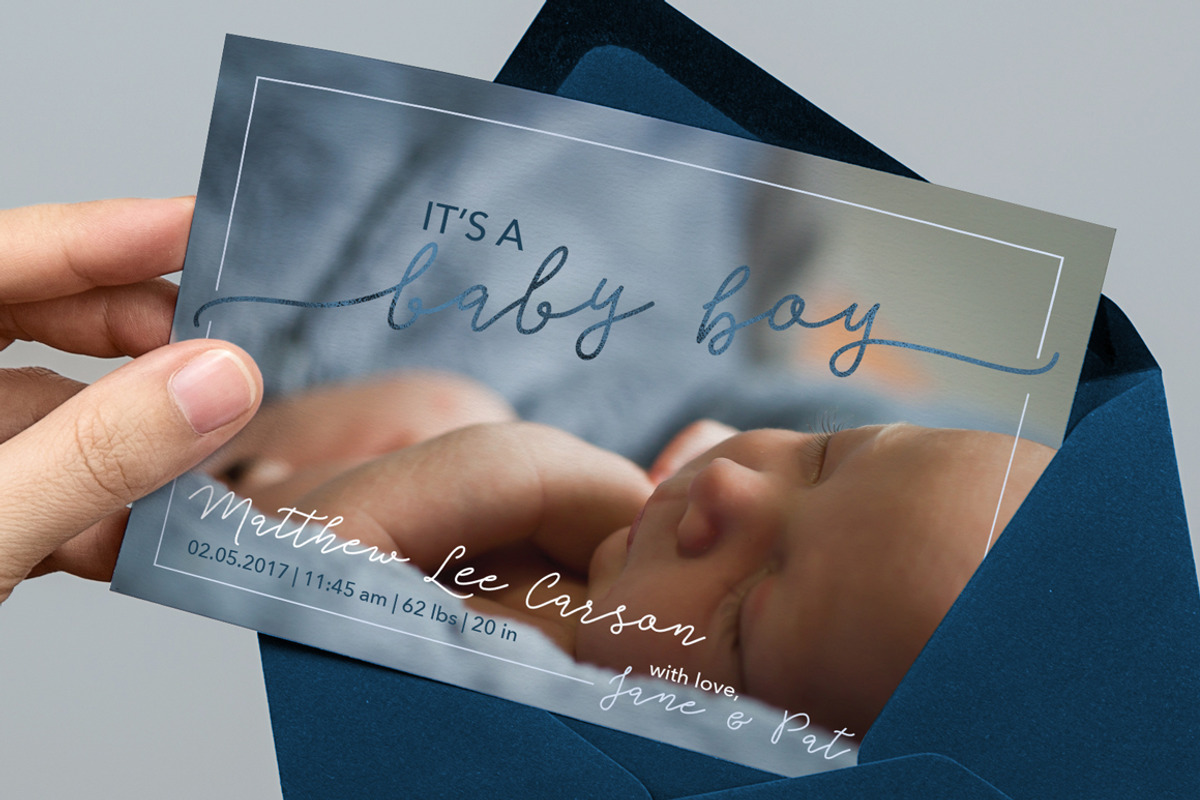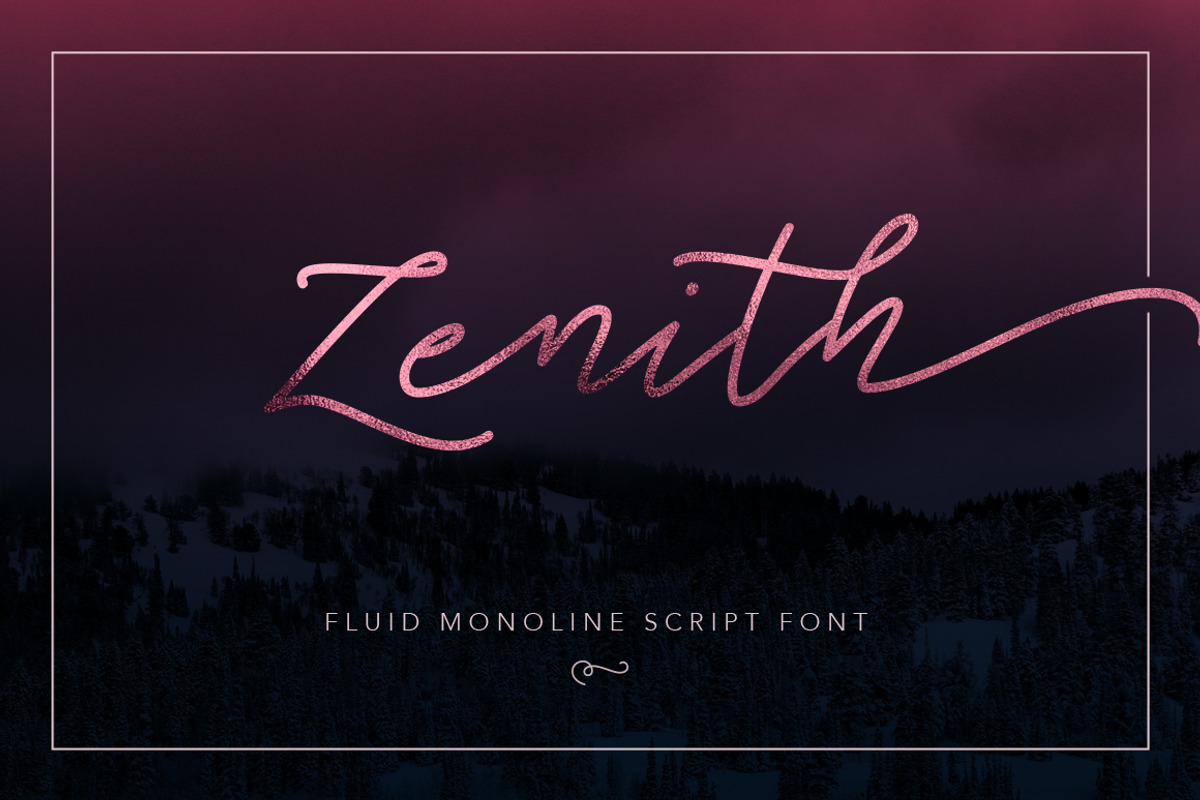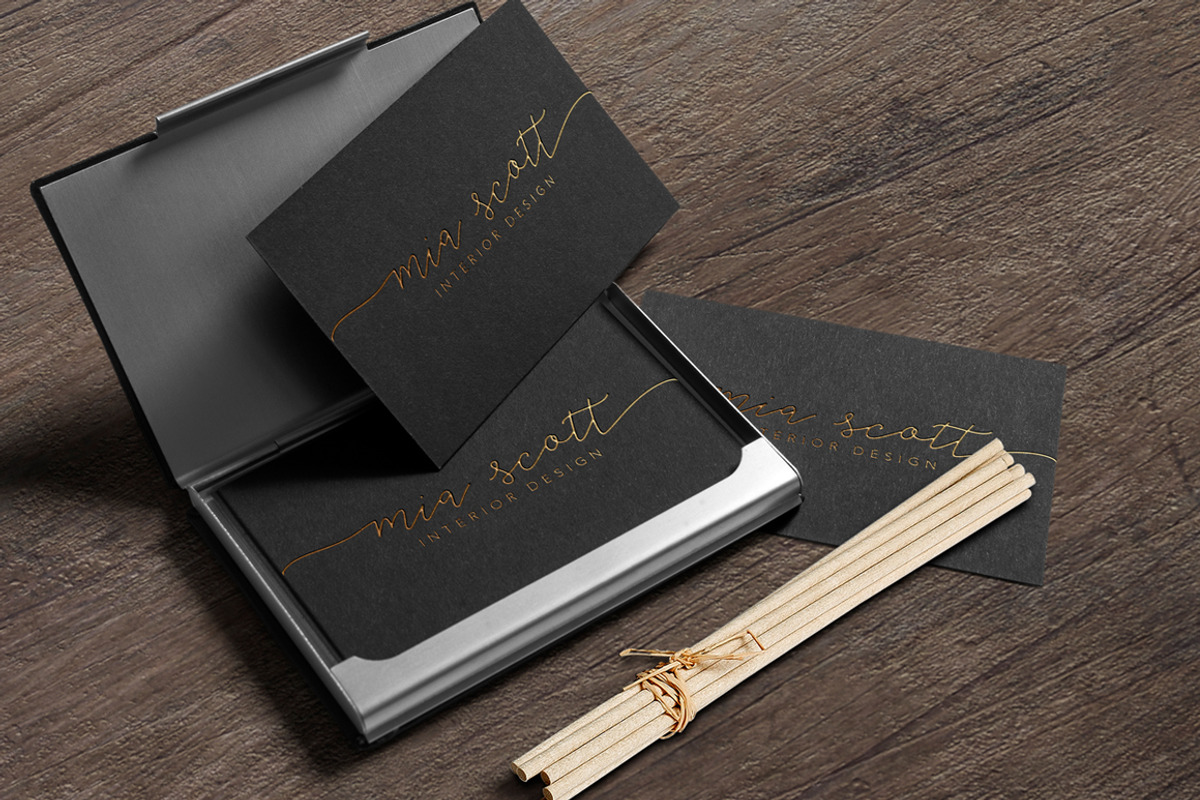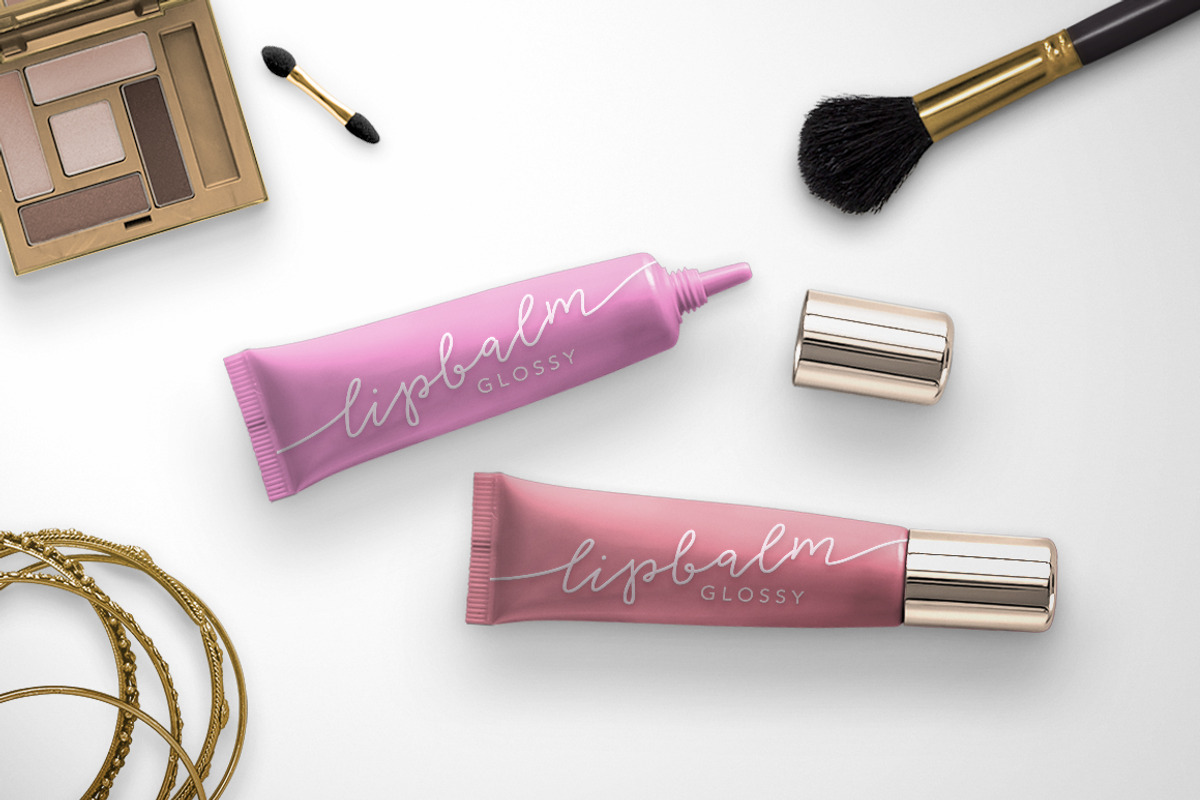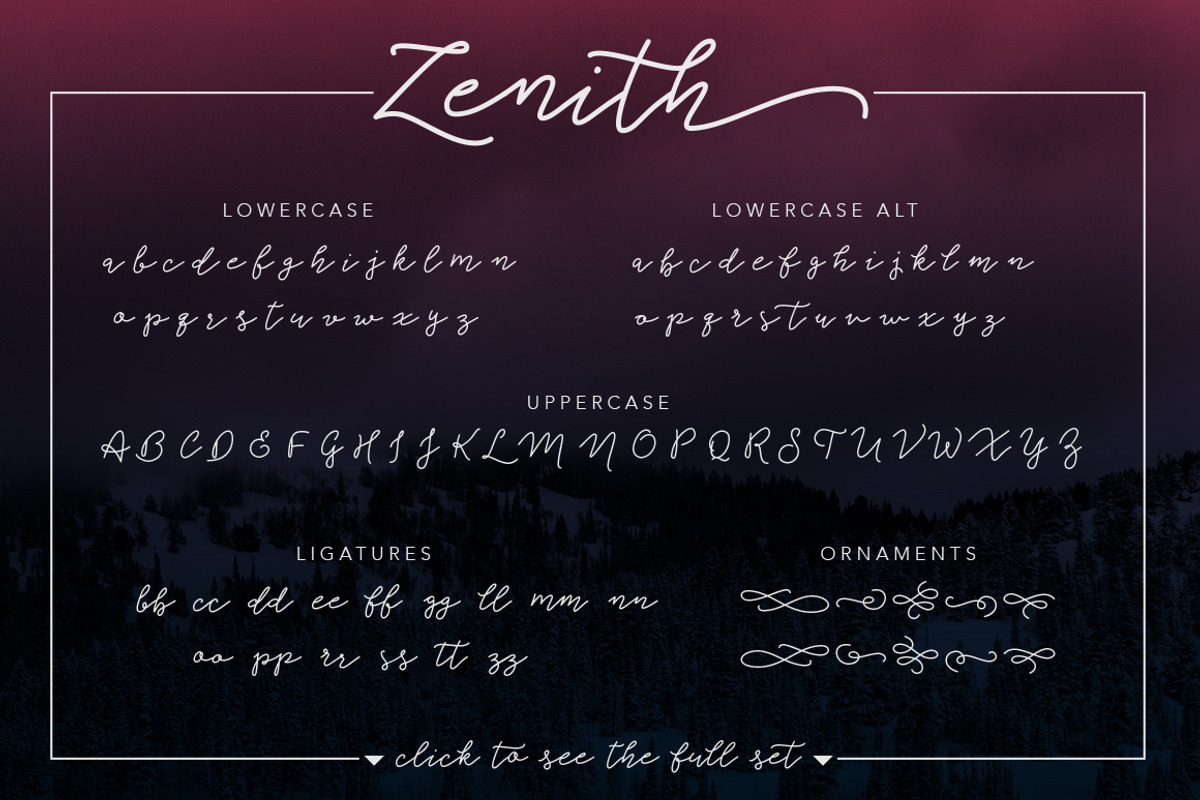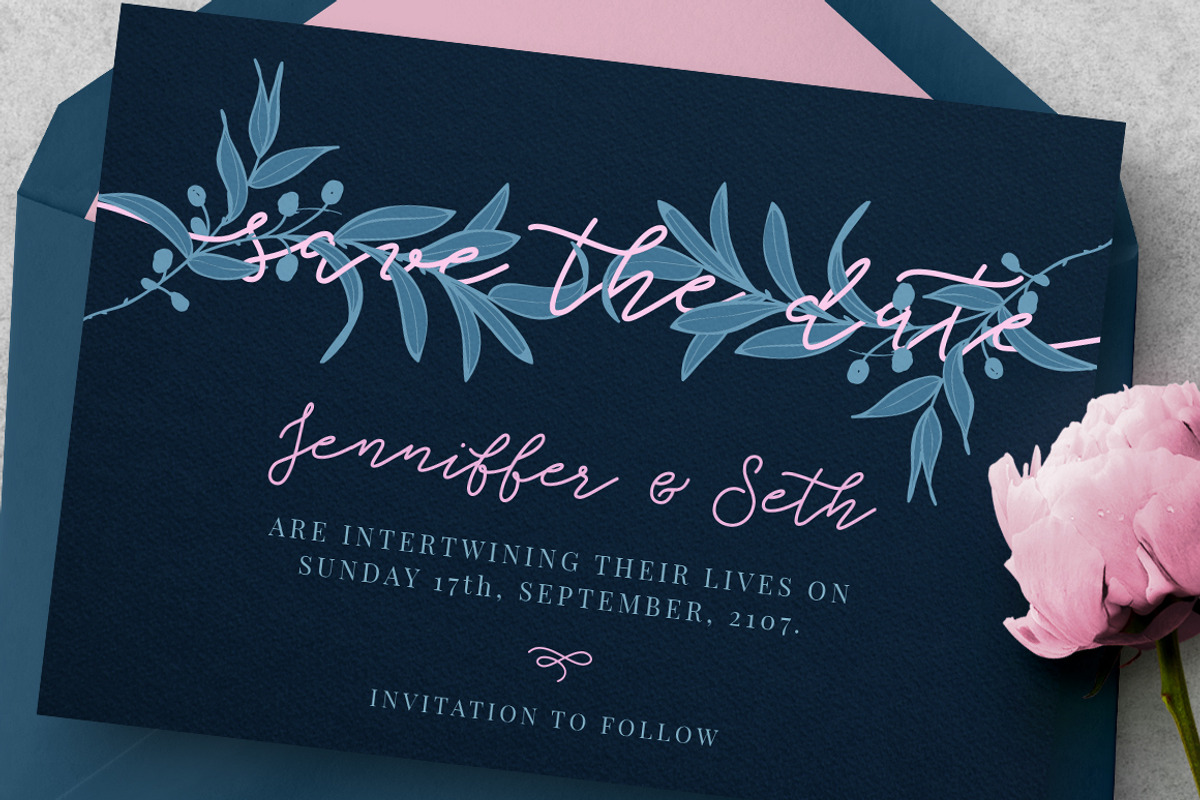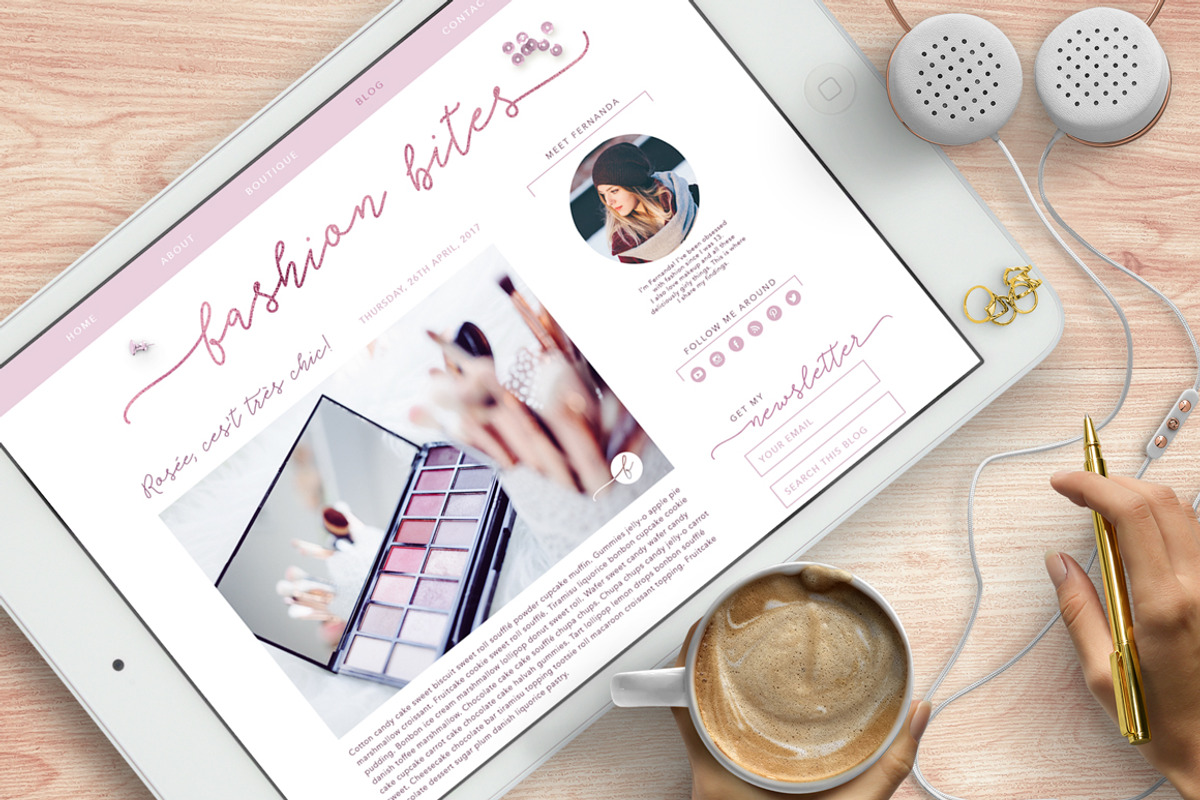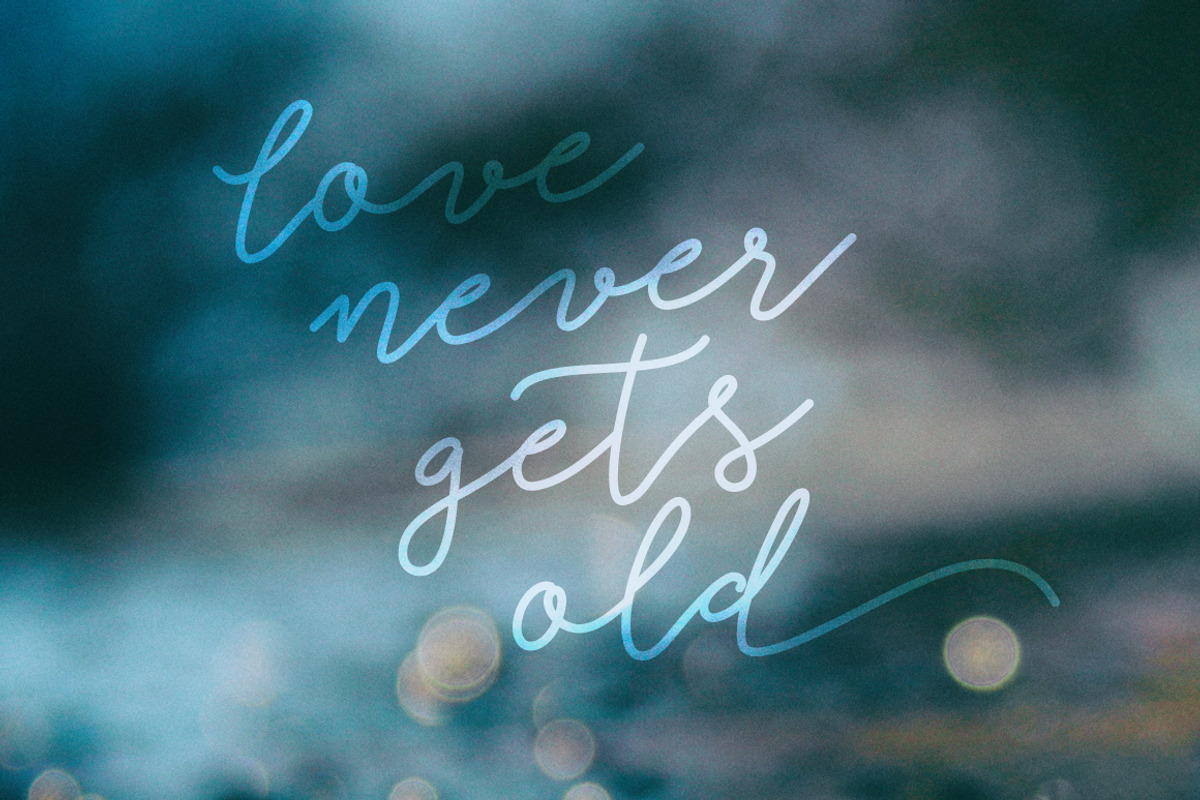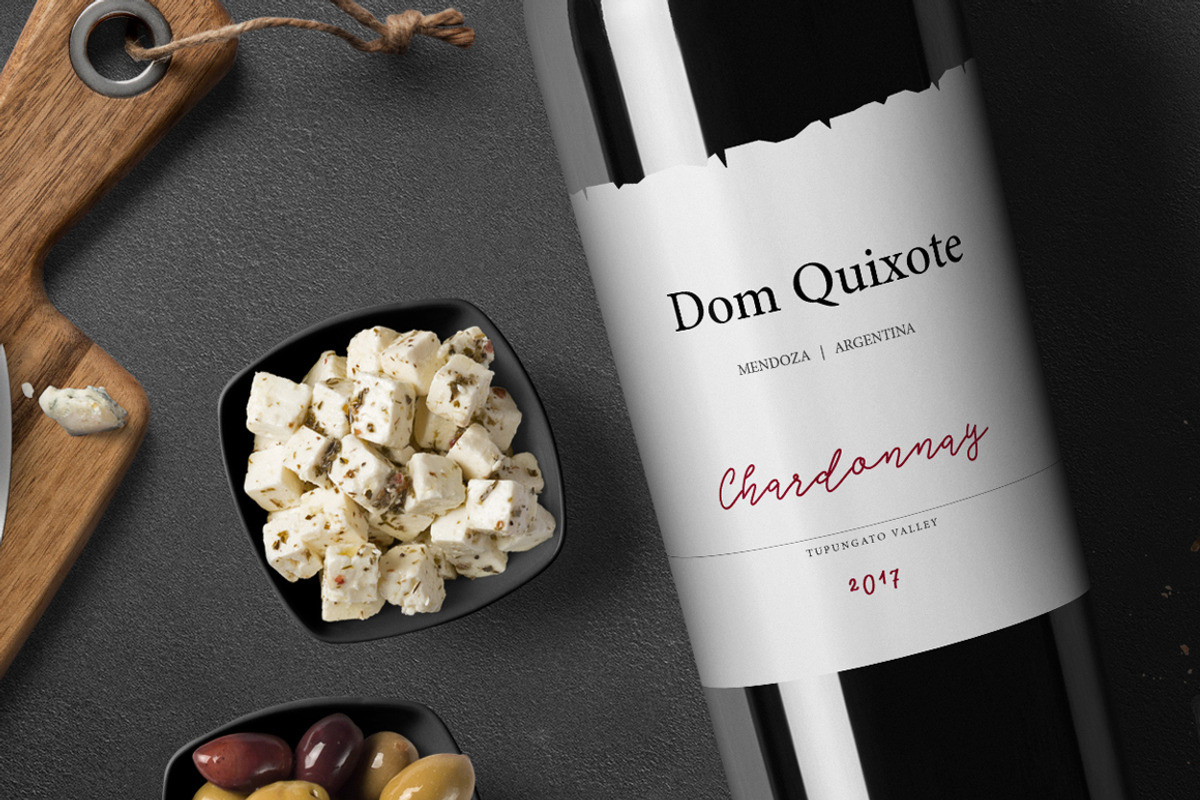
Zenith - Script Font
Zenith is fluid monoline script font.
Use Zenith to add a sophisticated, delicate and classy feel to your designs. Fitting for greeting cards, invitations, logo design, colateral branding, packaging, editorial and more!
This hand lettered font is packed with open type features to offer you flexibility and variation. The stylistic alternates also include initial and end lowercase swashes (access through the glyphs panel in your design program). Browse through the preview images to see some examples.
Multilingual support covers the following languages: Afrikaans, Albanian, Asu, Basque, Bemba, Bena, Chiga, Cornish, Danish, Dutch, English, Faroese, Filipino, French, Friulian, Galician, German, Gusii, Icelandic, Indonesian, Irish, Italian, Kabuverdianu, Kalenjin, Kinyarwanda, Luo, Luxembourgish, Luyia, Machame, Makhuwa-Meetto, Makonde, Malagasy, Malay, Manx, Morisyen, North Ndebele, Norwegian Bokmål, Norwegian Nynorsk, Nyankole, Oromo, Portuguese, Romansh, Rombo, Rundi, Rwa, Samburu, Sango, Sangu, Scottish Gaelic, Sena, Shambala, Shona, Soga, Somali, Spanish, Swahili, Swedish, Swiss German, Taita, Teso, Vunjo, Welsh, Western Frisian and Zulu.